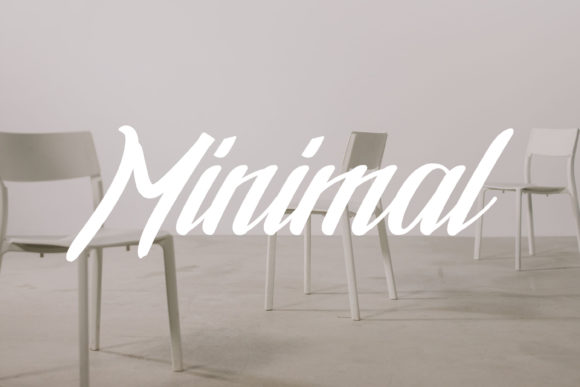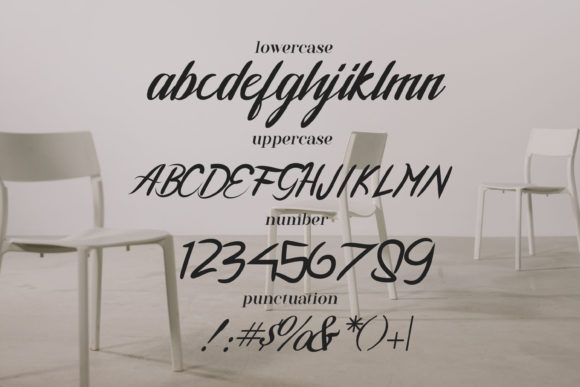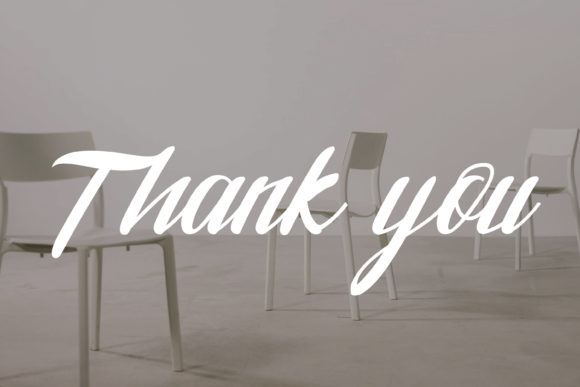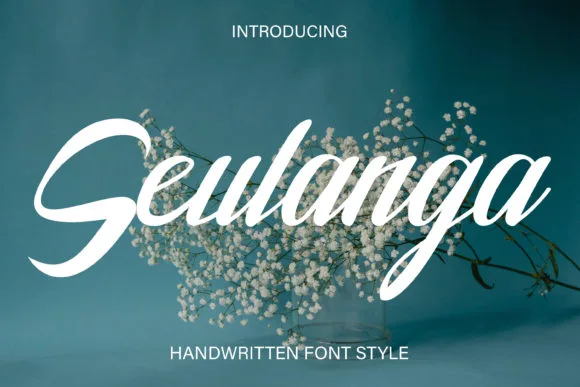
Seulanga Font
About Seulanga Font
**Seulanga** emerges as an elegant and stylish handwritten font, showcasing romantic and well-balanced characters that contribute to its timeless appeal. With its sophisticated aesthetic, this font is a confident addition to your projects, promising results that capture attention and admiration.
The elegance of Seulanga is apparent in the graceful curves and carefully crafted characters. Each letter exudes a sense of refinement and sophistication, making it an ideal choice for projects that demand a touch of class. Whether applied to branding, invitations, or any design endeavor, Seulanga brings an elevated and stylish quality.
The stylish handwritten nature of Seulanga adds a personal and authentic touch to your projects. The characters flow seamlessly, creating a harmonious script that feels both modern and timeless. This versatility allows the font to adapt to various design contexts, enhancing the overall visual experience.
With its romantic and well-balanced characters, Seulanga becomes a captivating element in your designs. From wedding invitations to social media posts with a romantic theme, the font complements the content with a touch of love and elegance. Its ability to convey a sense of romance makes it a valuable asset for projects that seek to evoke emotion.
Confidently integrate Seulanga into your projects, knowing that its elegant and stylish qualities will enhance the overall visual impact. Whether used for logos, branding materials, invitations, or any creative endeavor, this font stands ready to elevate your designs with its timeless and sophisticated charm.
In essence, Seulanga goes beyond being just a font; it becomes a design companion that effortlessly combines elegance and style. Embrace the confidence that comes with incorporating Seulanga into your projects, and witness how it enhances your creations with its romantic and well-balanced characters.